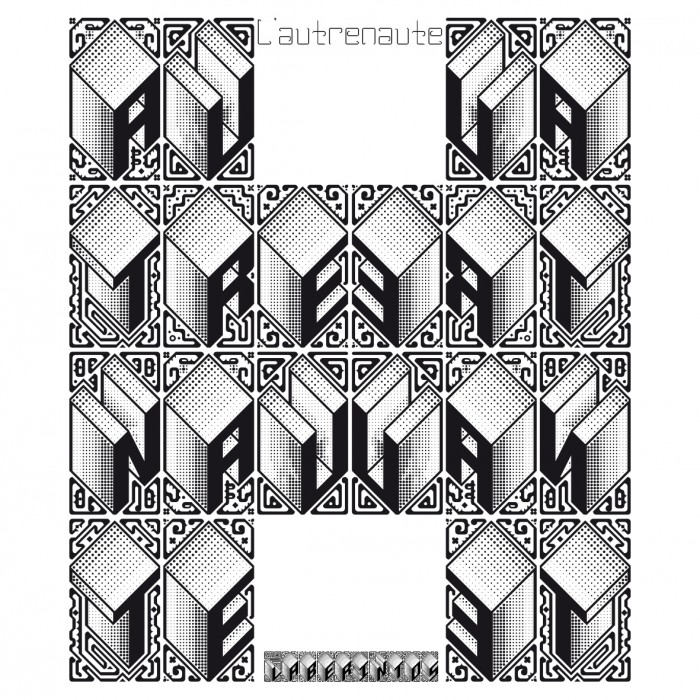
Laberintos
by ulrico
A decorative 3D font for the initials
Wow! Amazing and impressive work. 10/10+fav
Maybe you could make the lowercase a "clean" version of the capitals instead of just copying.
@ulrico - Amazing work here!  A few suggestions:
• On each K, the right foot has a notch missing -- is that intentional?
• The lower left terminal of the 3 looks a bit odd.  Should it match the upper left terminal?
Congrats on the TP! The gradients are cool.